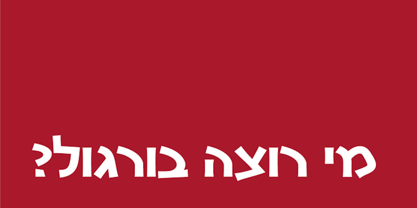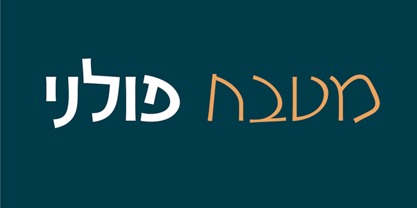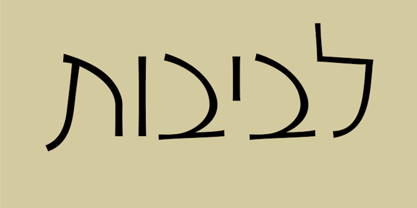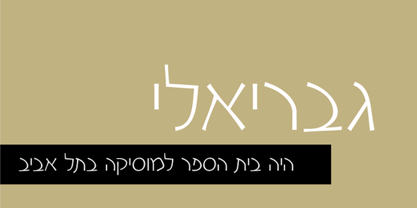
Tapuz
by Masterfont
The Tapuz Font Family was designed by Zvika Rosenberg and published by Masterfont. Tapuz contains 4 styles and family package options. More about this family
This calligraphic scribble follows the traditional Hebrew type by intensive and free hand drawn lines.